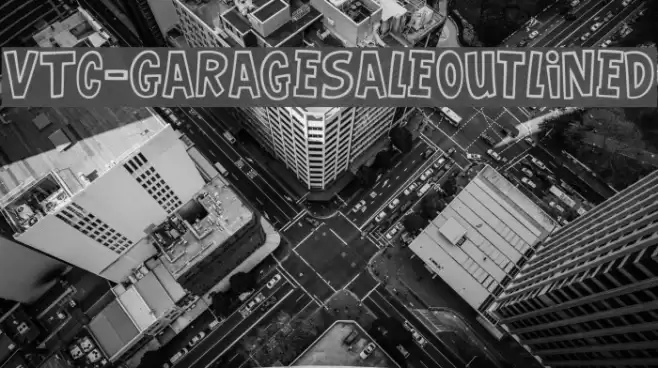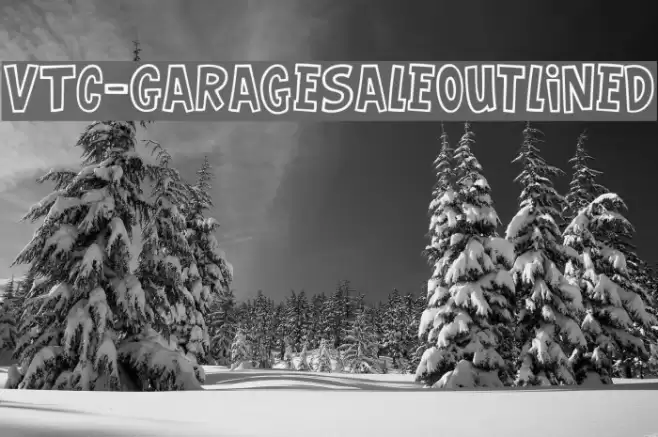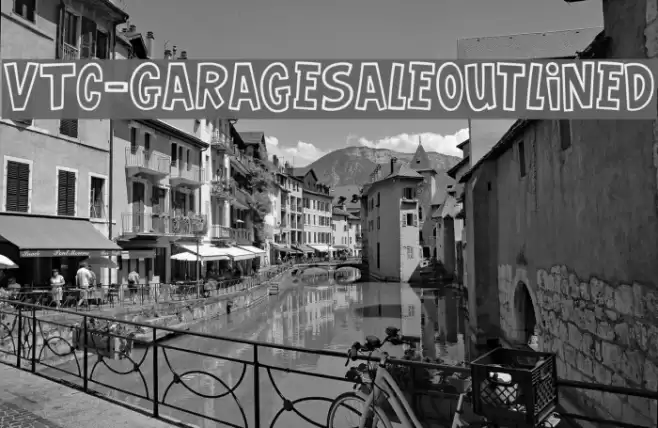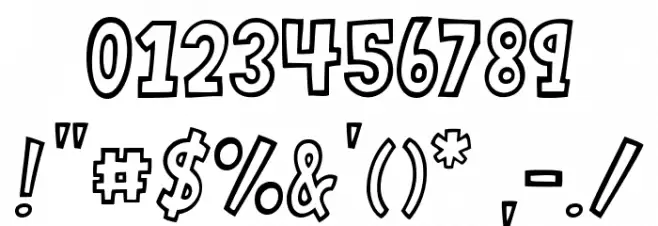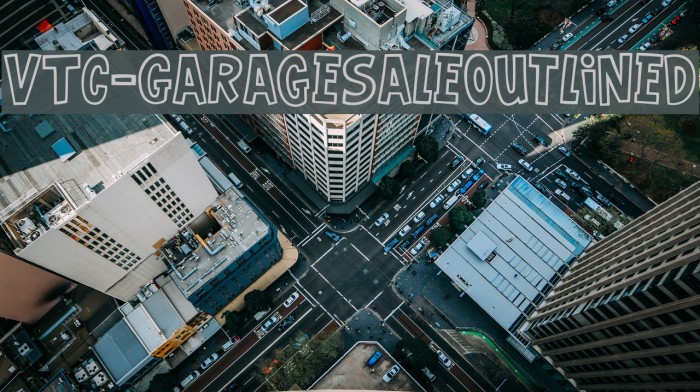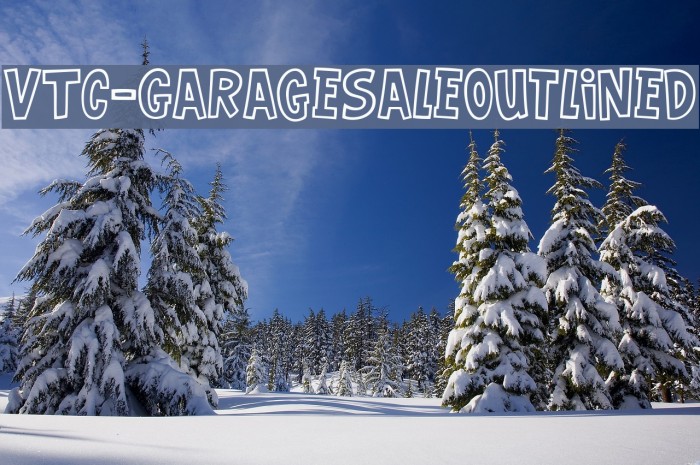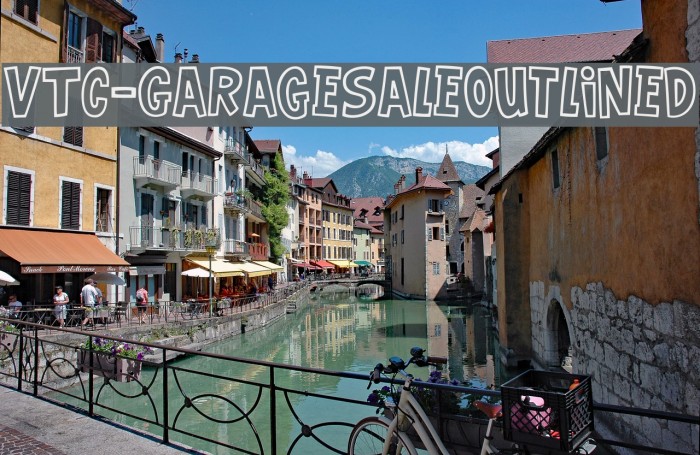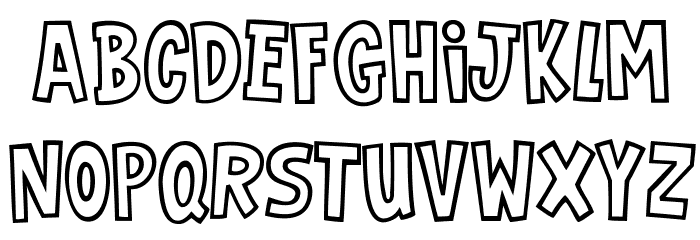
VTC-GarageSaleOutlined Font
VTC-GarageSaleOutlined Description
This font features a playful and bold outline style, characterized by its thick, uniform strokes that create a cartoonish and informal appearance. The uppercase and lowercase letters maintain a consistent width, giving the font a cohesive look. The numbers and special characters are designed with the same bold outline, ensuring uniformity across all glyphs. The font's quirky and fun style makes it ideal for projects that require a lighthearted and engaging visual element. Its clear and legible design ensures readability while adding a touch of personality.
A playful, bold outline font with a cartoonish and informal style from Uncategorized fonts.
- Proposed Projects: Ideal for children's books, comic strips, playful branding, and event posters.
- Overall Style: Playful, Cartoonish